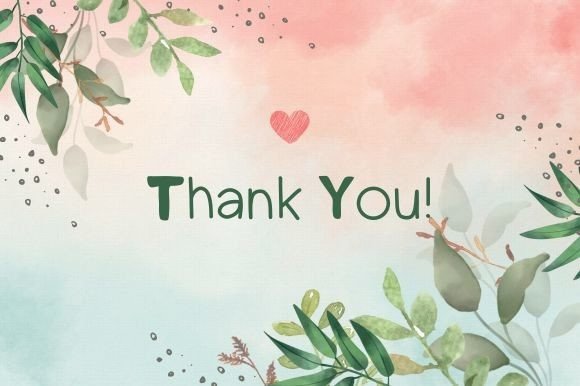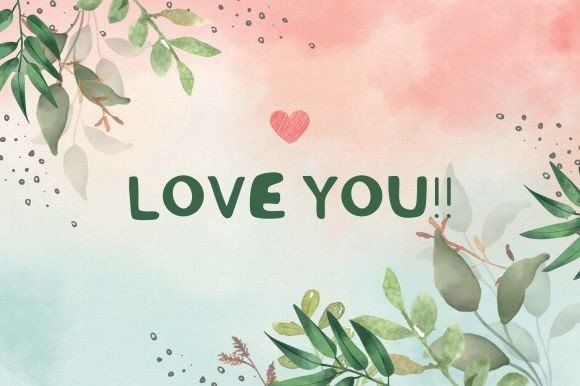
Introduction to Sn New Font
Have you ever stared at a blank canvas, feeling the creative spark within you, but struggling to find the perfect words to bring your vision to life? As designers, we’ve all been there – searching for that elusive font that will elevate our artwork and make it truly special. Well, your search might just be over with the introduction of Sn New Font, a stunning handwritten font that’s about to revolutionize the way you create.
This gorgeous typeface is designed to be playful and elegant, with rounded letters that add a touch of whimsy to any design. With its high-quality texture and transparent background, Sn New Font is the perfect resource for designers who want to add a personal touch to their creative projects. Whether you’re working on a custom mug, a greeting card, or a clothing design, this font is sure to make your work stand out.
Key Features of Sn New Font
- High-quality design resource with a transparent background, perfect for creative projects.
- Resolution-independent design ensures crisp and clear text display on various devices and resolutions.
- Unique characteristics include a modern and sleek aesthetic, with clean lines and precise typography.
Honest Review: Sn New Font
I recently stumbled upon the Sn New Font while searching for a high-quality font to use for a creative project. As a designer, I’m always on the lookout for reliable design resources that make my work easier and more efficient.
One thing that stands out about the Sn New Font is its high quality and modern aesthetic. The font is perfect for use in logos, headers, and other design elements where a clean and sleek look is desired. ✨ The transparent background feature is also a nice touch, making it easy to layer the font over other design elements.
Here are some of the key features that I liked about the Sn New Font:
- High quality and modern aesthetic
- Transparent background feature
- Perfect for use in logos, headers, and other design elements
However, I did encounter some limitations with the font:
- Limited character set (some characters may not be supported)
- No bold or italic variations
Overall, I’m impressed with the Sn New Font and would recommend it to designers who are looking for a high-quality font for their creative projects. While it may have some limitations, the font is still a valuable resource that can help take your designs to the next level. I was able to download the font for free, which is always a bonus! ✨
Sn New Font
Sn New Font is a versatile and modern design resource that can elevate any creative project. With its high-quality design and transparent background, it’s perfect for adding a touch of sophistication to your visual content.
Tips for Getting the Most Out of Sn New Font
To get the most out of Sn New Font, use it in conjunction with other design resources, such as graphics and images. Experiment with different font sizes and colors to create a unique and eye-catching design.
Common Use Cases for Sn New Font
Sn New Font is commonly used in a variety of creative projects, including logos, graphics, social media posts, presentations, and documents. Its high-quality design and transparent background make it perfect for adding a touch of sophistication to any visual content.